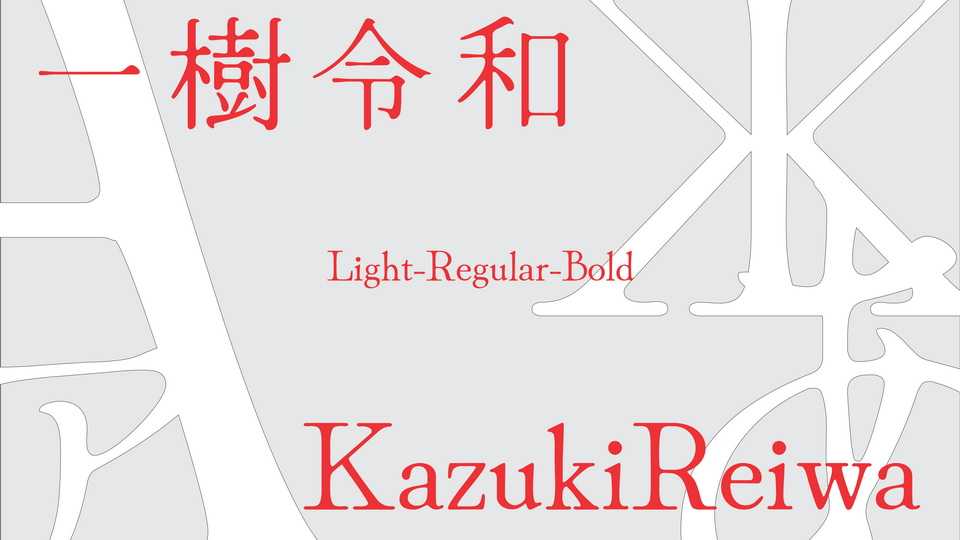
Download KazukiReiwa typeface, an old style serif font family featuring a flowing stroke, soft edges and an organic design. KazukiReiwa is intended to provide a typeface for all current languages and writing systems that use Latin, Cyrillic, Japanese, Greek and Braille scripts.
Designer: Kazuki Kimura